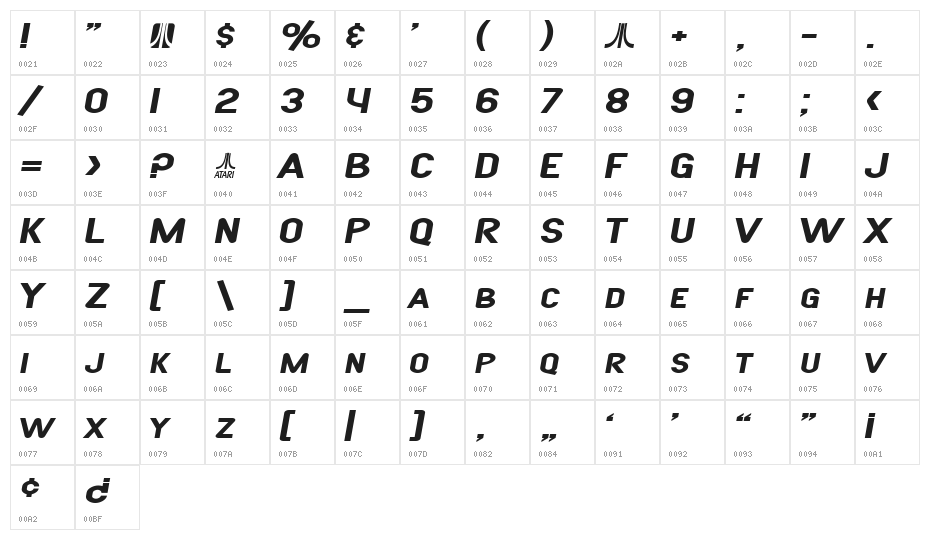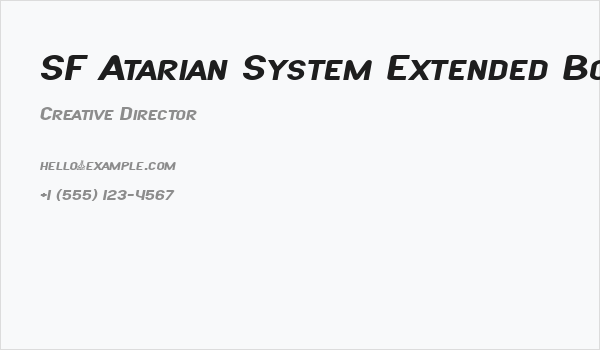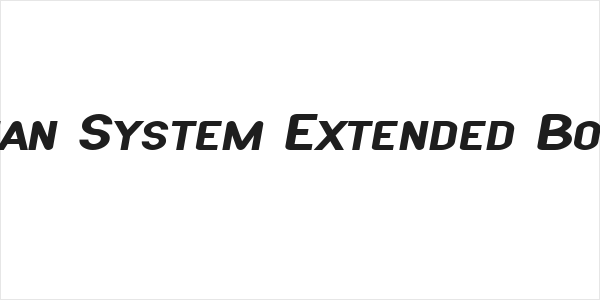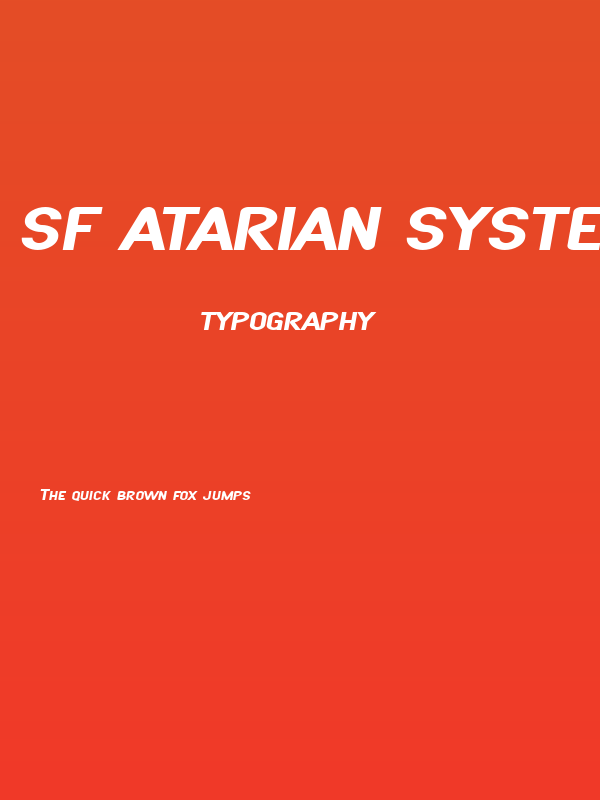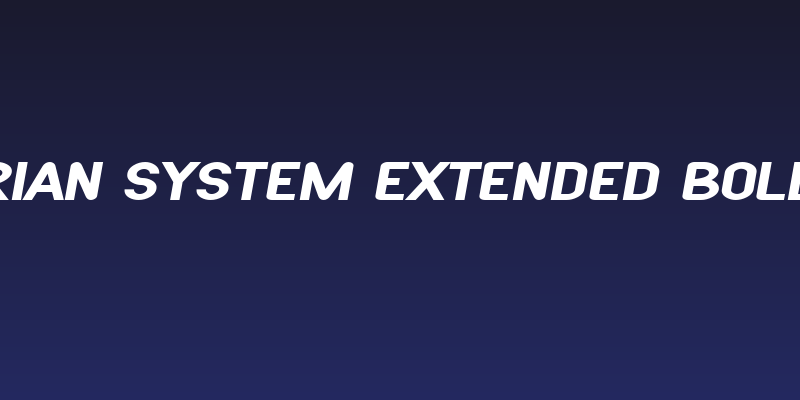
SF Atarian System Extended Bold Italic Font
SF Atarian System Extended Bold Italic Description
This font features a bold and italicized style with a distinctly modern and futuristic appearance. The characters are extended, giving them a wide stance that enhances readability while maintaining a sleek and dynamic look. The strokes are consistent in weight, contributing to a uniform and cohesive design. The italic slant adds a sense of motion and energy, making it suitable for attention-grabbing headlines or branding. The numerals and special characters are designed to match the boldness and style of the letters, ensuring a harmonious overall appearance.
| Proposed Projects | Ideal for use in technology branding, video game titles, futuristic posters, and dynamic advertising campaigns. |